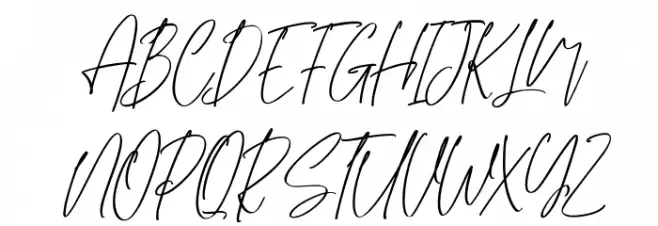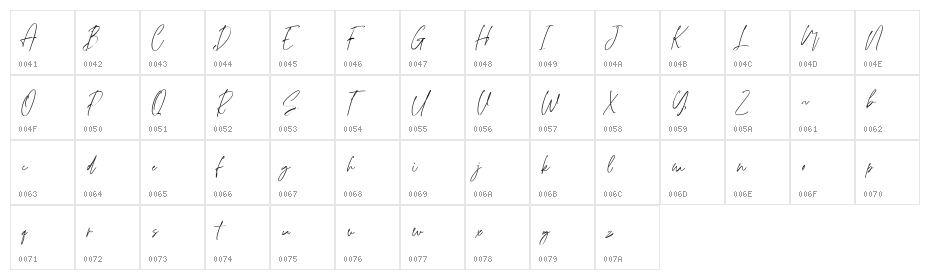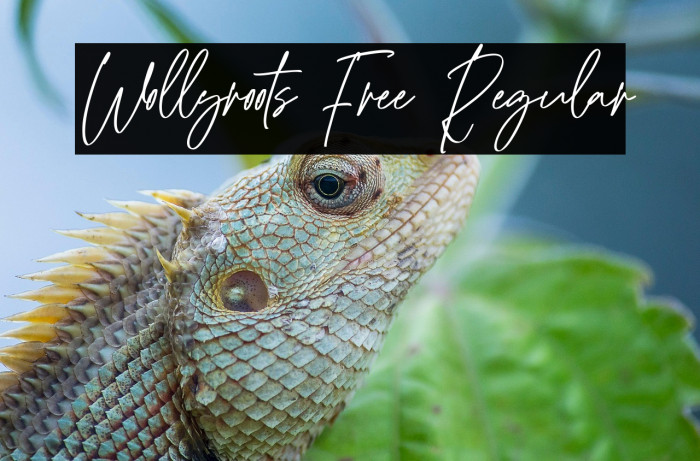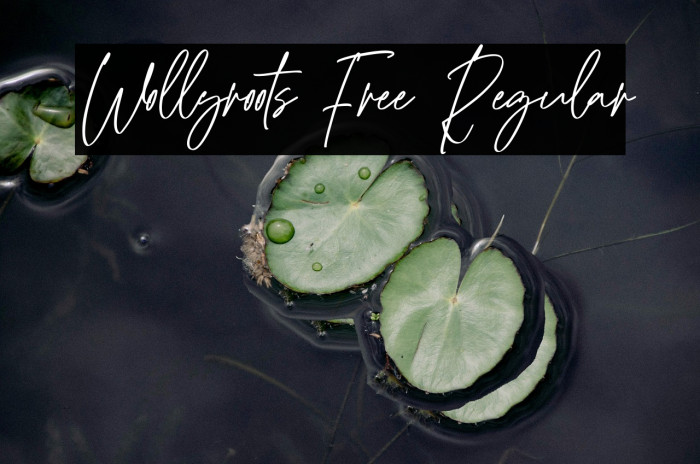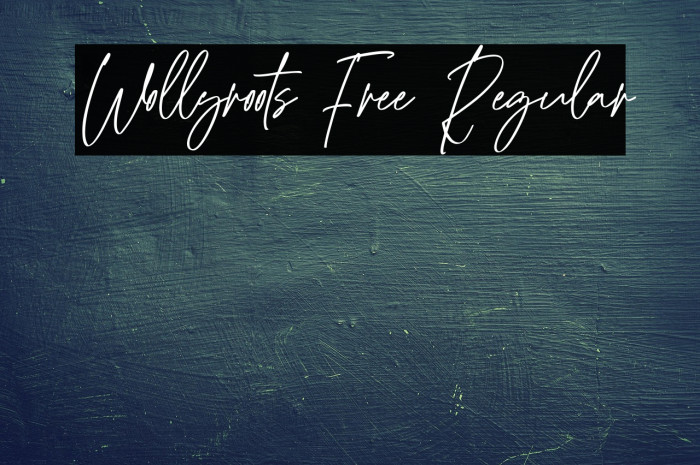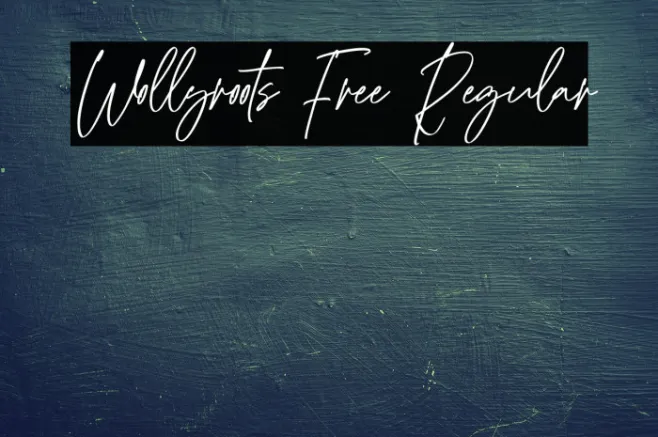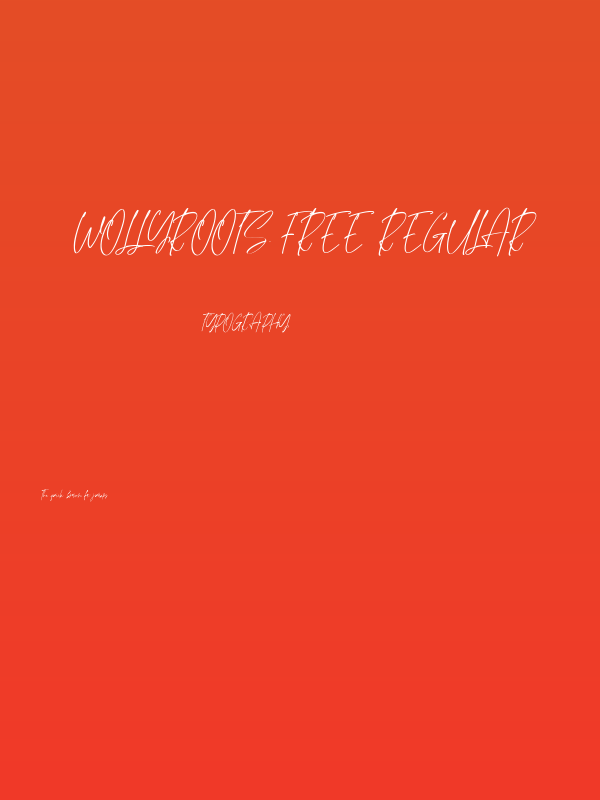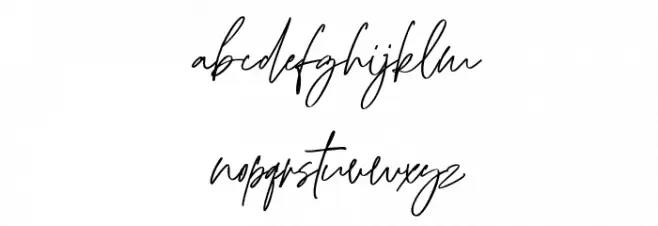
Wollyroots Free Regular Font
Wollyroots Free Regular Description
A flowing, handwritten script font with a casual and elegant style, featuring elongated strokes and a natural, organic feel.
| Overall Style | Decorative |
| Use Case | Logos, Headlines |
| Proposed Projects | Invitations, greeting cards, branding, social media graphics. |